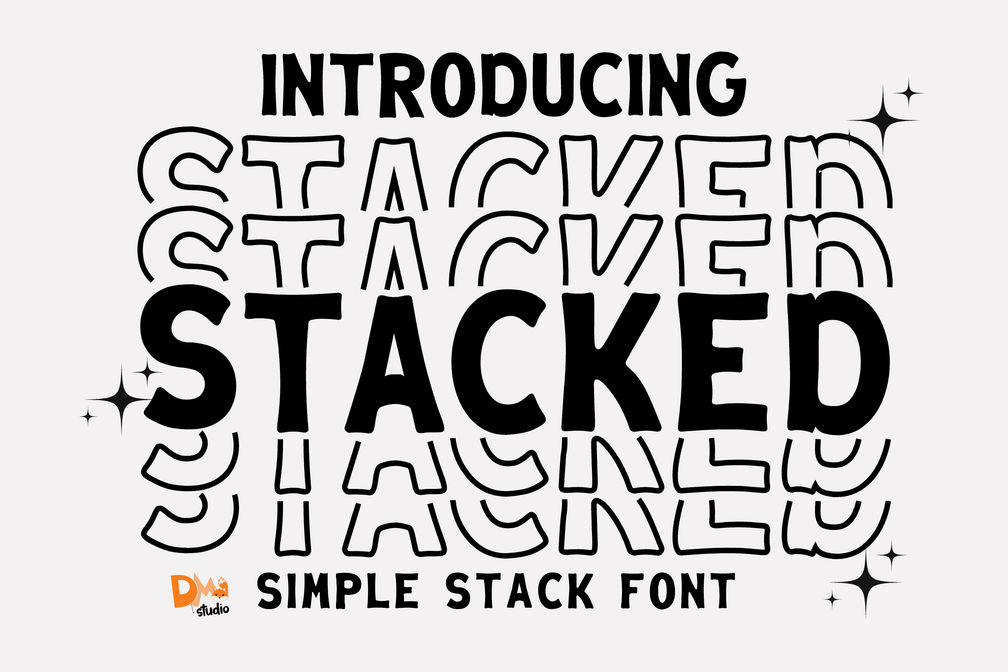
Stacked Font
Stacked Font is a bold, playful, and eye-catching display typeface that brings a fresh and dynamic look to your designs. With its unique stacked lettering style, this font adds depth, fun, and creativity to any project. Ideal for headlines, posters, logos, children’s designs, packaging, and social media graphics, Stacked Font effortlessly captures attention and stands out from the crowd. Whether you’re working on creative branding or playful visual content, this font is designed to make your message pop!
• Unique Stacked Design: Creates bold and dynamic typography with layered letter effects.
• Playful and Versatile: Perfect for posters, logos, titles, banners, packaging, and more.
• High-Impact Display Font: Makes any text stand out with its fun and energetic style.